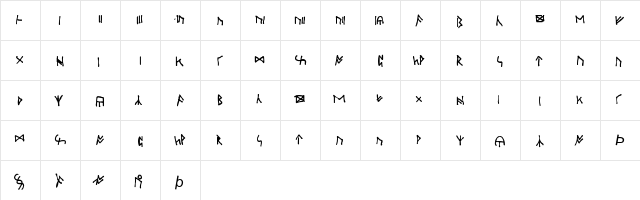
Oxford Runes Regular
Design Context for Oxford Runes Typeface
Oxford Runes is a composed and adaptable typeface that performs quietly and consistently across a wide range of design contexts.